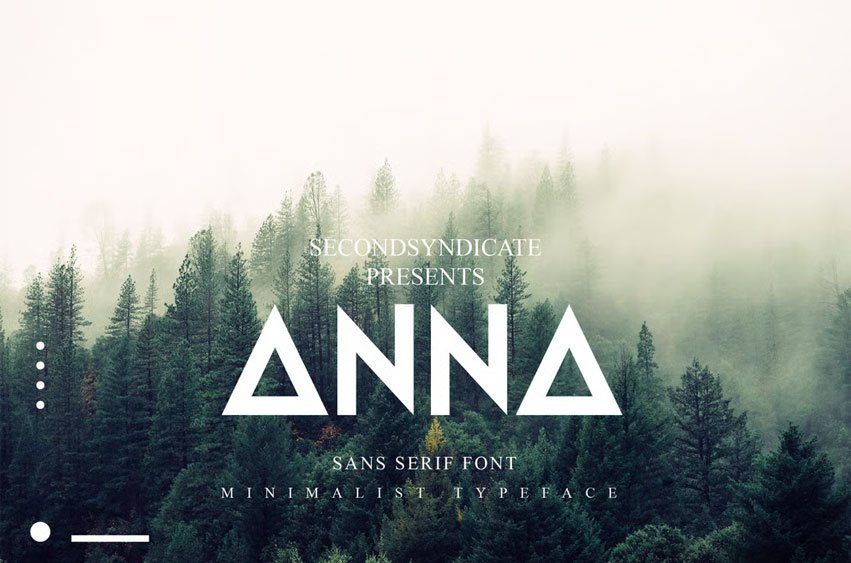
Anna Font is a modern Sans-Serif font – ANNA for your personal or business purpose.
Every letter has a unique and beautiful touch, which will make your design come alive!